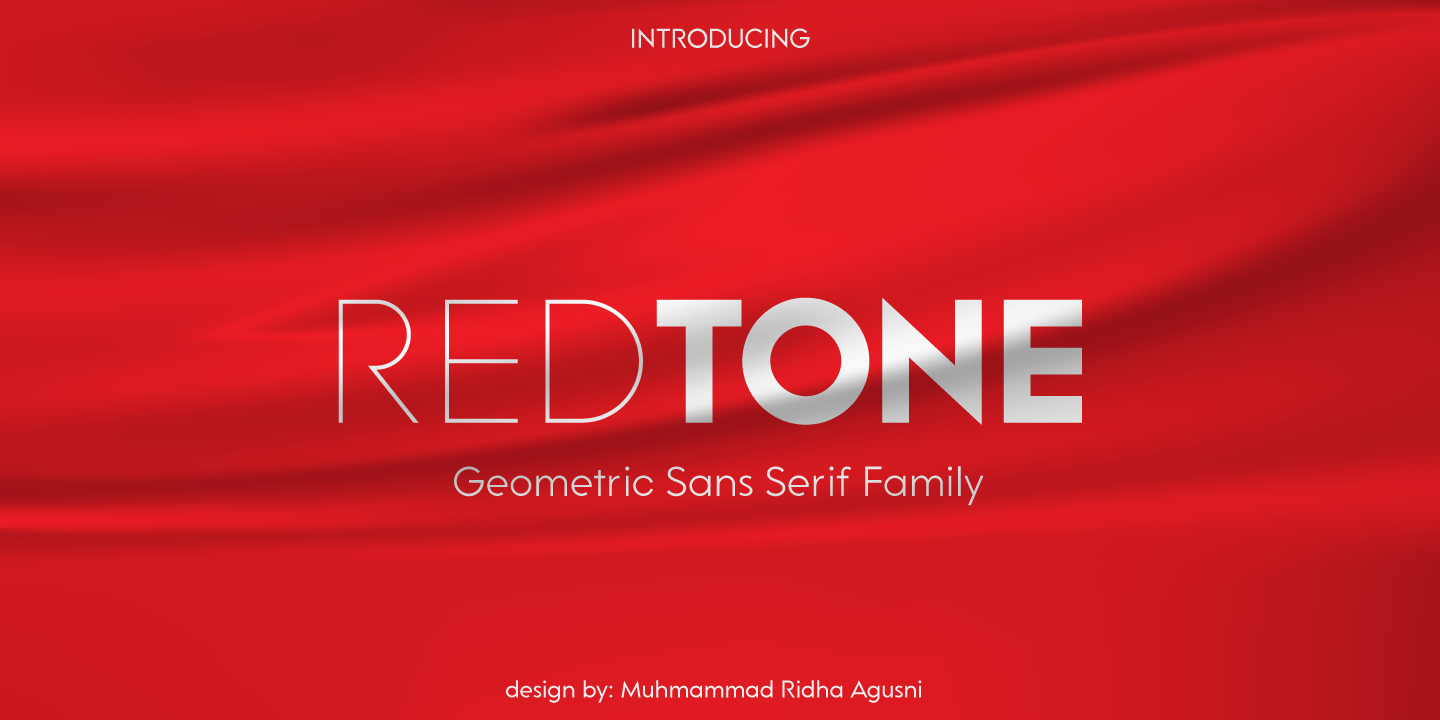
Redtone Font is ideal for vibrant design projects including music festival posters, entertainment venue branding, nightclub promotions, concert merchandise, radio station logos, audio equipment packaging, music streaming platforms, and dynamic social media campaigns. This energetic typeface excels in DJ equipment branding, recording studio materials, podcast graphics, music production software, and projects that celebrate the power and emotion of sound and rhythm.
What makes Redtone Font exciting is its dynamic musical character that perfectly captures the energy and passion of sound waves and rhythmic vibrations. The font features bold letterforms with flowing curves that mirror the movement of audio frequencies and musical melodies. Its vibrant design elements reflect the intensity and emotional power of music, making it perfect for projects that need to convey energy, creativity, and the universal language of sound. The carefully balanced proportions create visual harmony while maintaining powerful presence.
Redtone Font comes in multiple family variations including light, regular, bold, and heavy weights. Each style maintains the distinctive musical character while offering different levels of visual amplitude and sonic impact. The font family includes rhythm-inspired alternates, melodic ligatures, and dynamic variations that allow designers to create truly harmonious and emotionally resonant typographic compositions that pulse with musical energy.